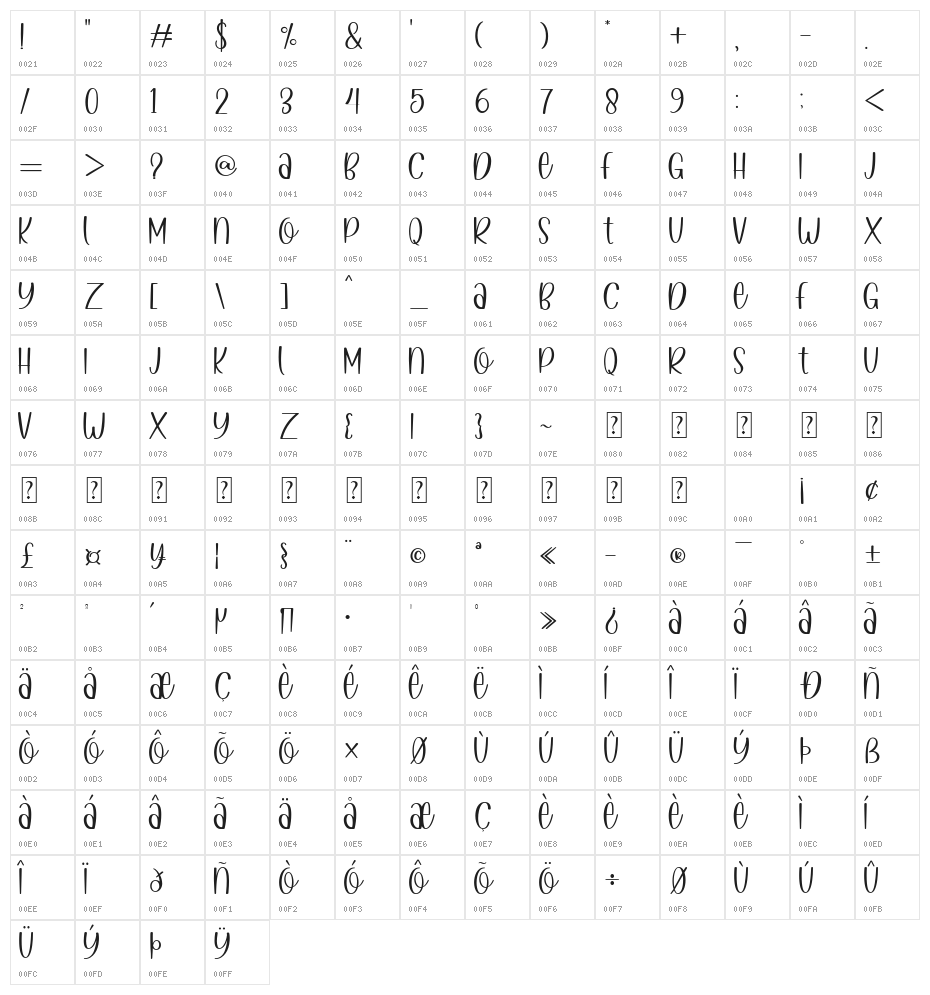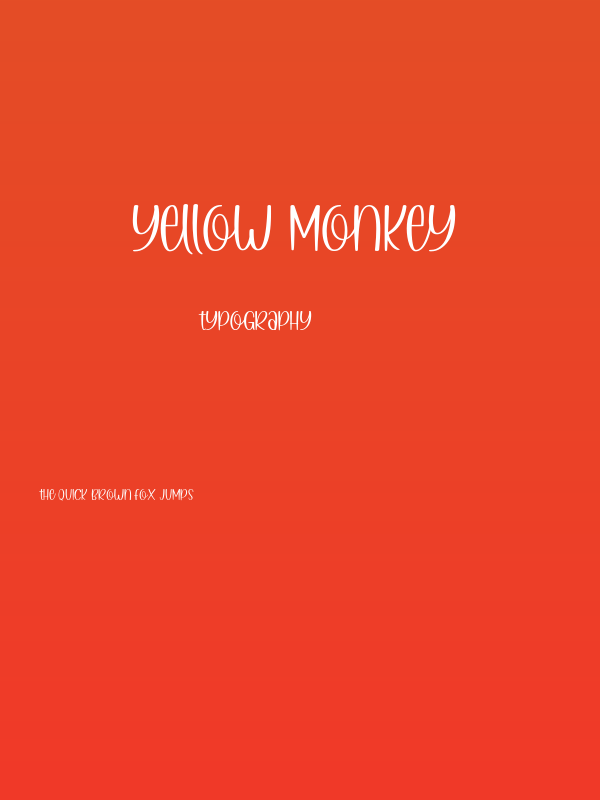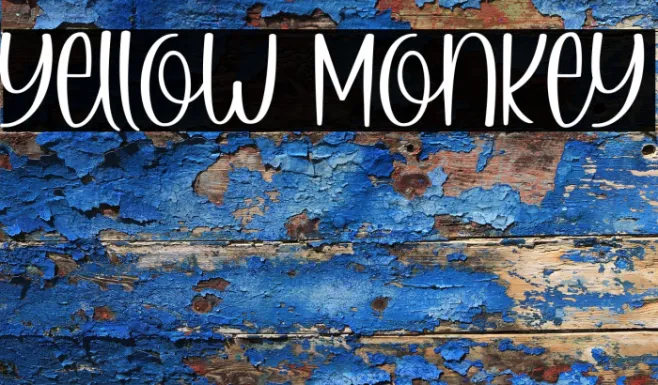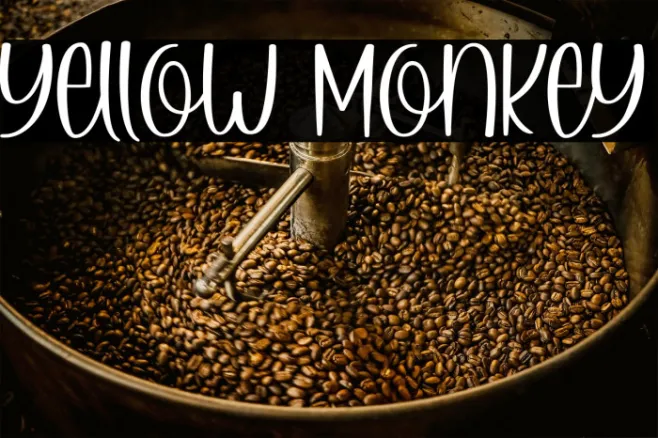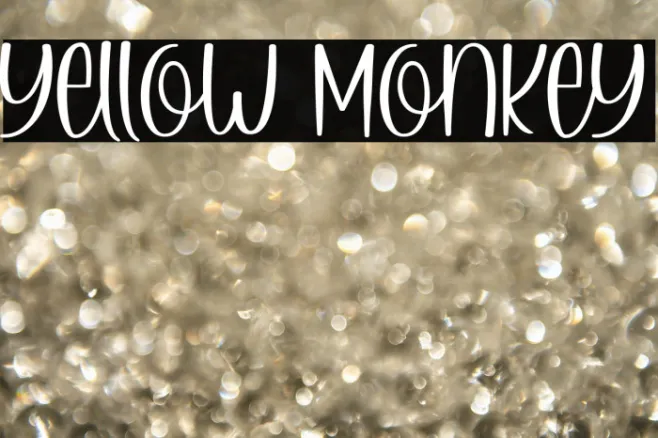
Yellow Monkey Font
Yellow Monkey Description
This font features a playful and whimsical style, characterized by its smooth, flowing curves and slightly irregular letterforms. The uppercase letters are bold and rounded, with a consistent stroke width that gives them a friendly and approachable appearance. The lowercase letters maintain this playful aesthetic, with some letters having unique, quirky elements that add to the font's charm. The numbers are clear and legible, matching the overall style of the alphabet. Special characters are well-integrated, maintaining the same playful and informal tone. This font's design is perfect for projects that require a touch of fun and creativity.
| Proposed Projects | Ideal for children's books, playful branding, greeting cards, and creative posters. |